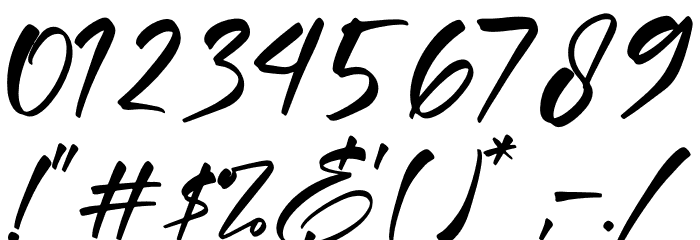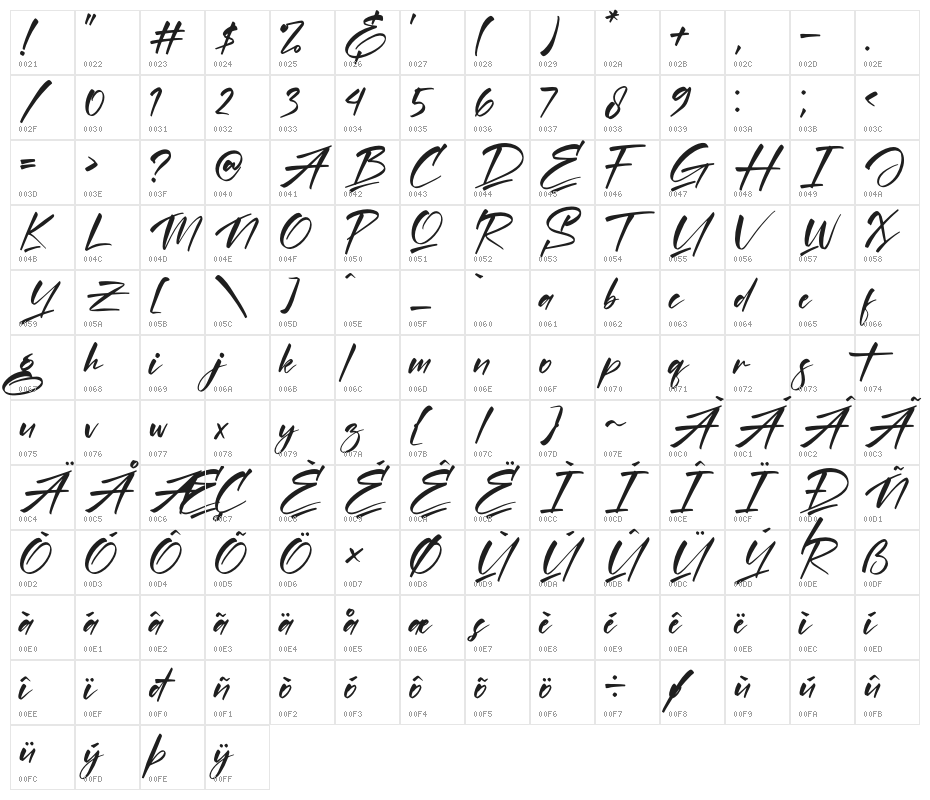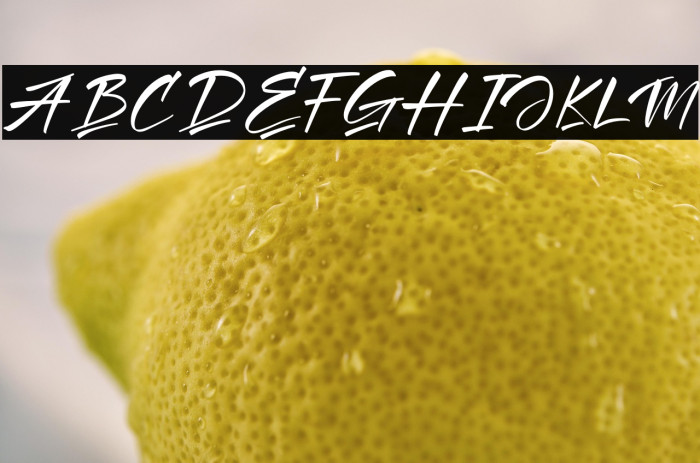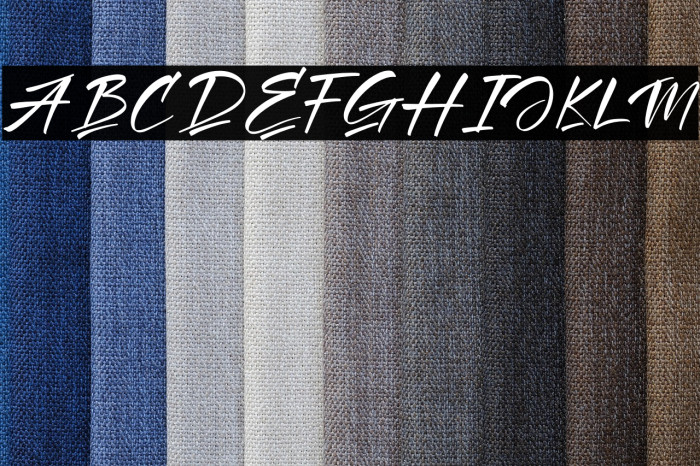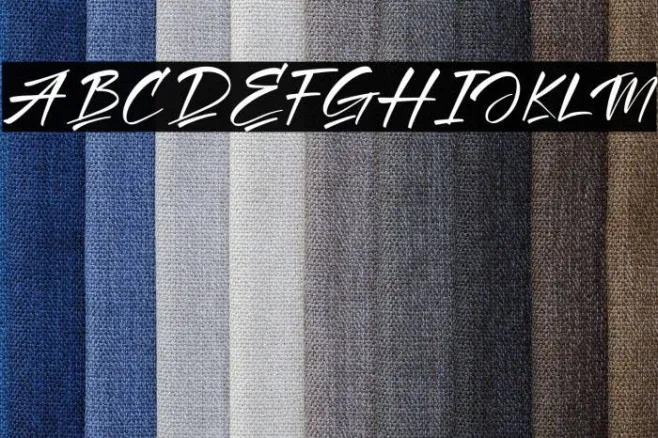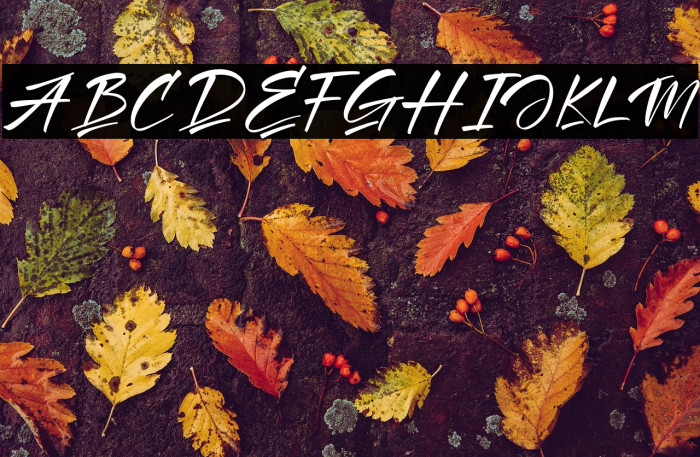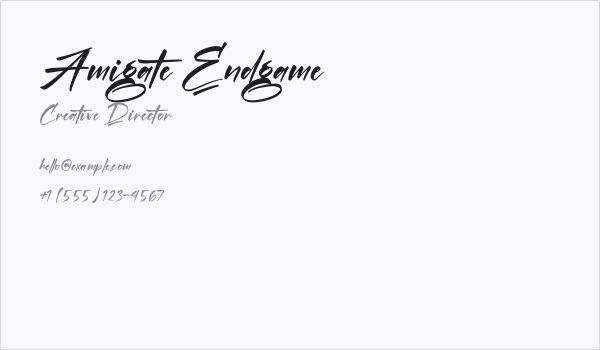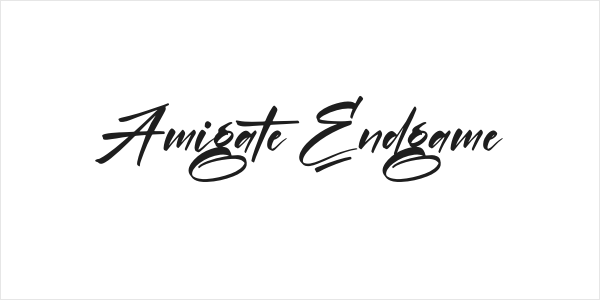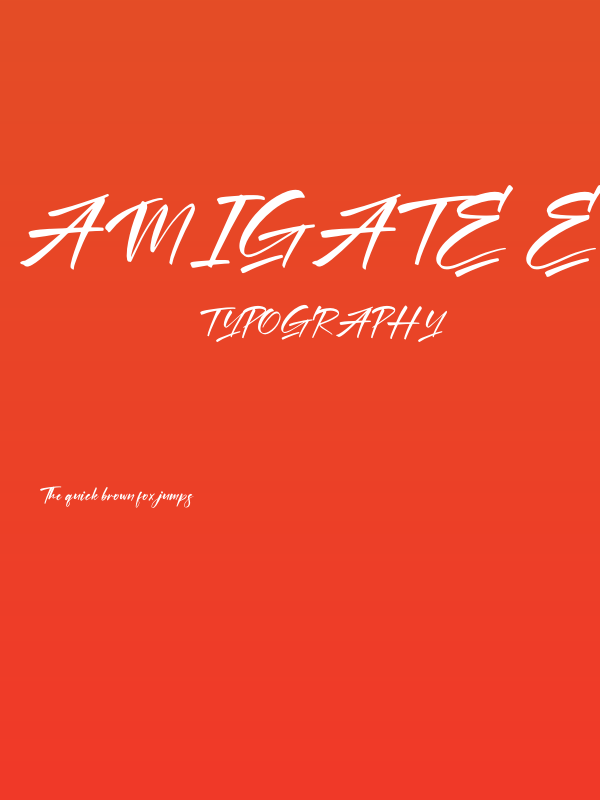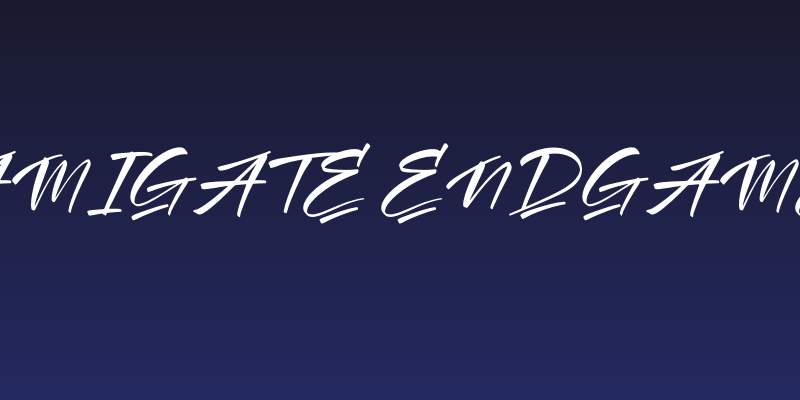
Amigate Endgame Font
Amigate Endgame Description
This font exudes a dynamic and energetic style, characterized by its bold, flowing script that mimics the fluidity of handwriting. The uppercase letters are slightly slanted, with exaggerated loops and curves that give a sense of movement and flair. The lowercase letters maintain a consistent style, with some letters featuring unique swashes that add to the overall aesthetic. The numbers are equally expressive, maintaining the same boldness and fluidity. Special characters are creatively designed, fitting seamlessly with the rest of the set. This font is perfect for projects that require a personal touch or a sense of creativity and spontaneity.
| Proposed Projects | Ideal for branding, invitations, greeting cards, and creative posters. |